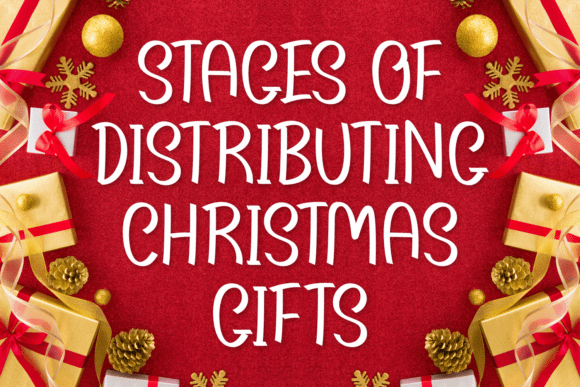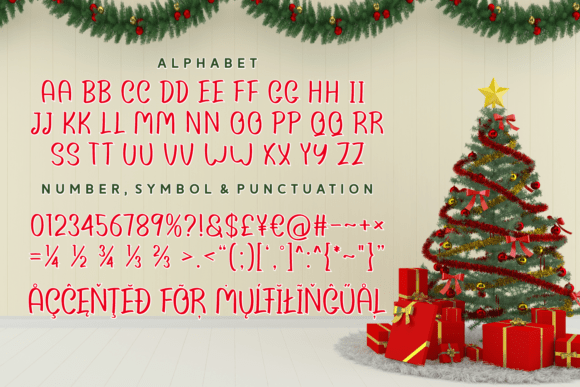
Introduction to Gemstone Christmas Font
As you sit surrounded by twinkling lights and the warmth of the holiday season, the urge to create something special strikes. You rummage through your design resources, searching for the perfect font to bring your festive vision to life. And then, you stumble upon it – the “Gemstone Christmas Font”. This enchanting font is more than just a design element; it’s a celebration of Christmas in itself.
With its blend of crafty and sweet aesthetics, the Gemstone Christmas Font is a high-quality resource that elevates any creative project. Its transparent background and beautiful swash elements make it perfect for SVG cutting crafts, Silhouette shirts, and design quotes. Whether you’re a seasoned designer or a craft enthusiast, this font is a valuable addition to your design arsenal. And the best part? It’s available for free download, making it an accessible resource for designers of all levels.
Key Features of Gemstone Christmas Font
- Unique, hand-drawn design with a touch of elegance and sophistication, perfect for a high-quality creative project.
- Includes a transparent background, allowing for easy placement on any design without distractions.
- High-resolution font, suitable for use in both print and digital designs, with a minimum resolution of 300 DPI.
- Comes in a range of sizes, from 12 to 72 points, allowing for flexibility in design applications.
- Perfect for use in Christmas-themed designs, invitations, cards, and other creative projects where a touch of luxury is desired.
Honest Review: Gemstone Christmas Font
I recently stumbled upon the Gemstone Christmas Font, and I must say, it’s a high-quality addition to any creative project. The font itself is a beautiful, hand-drawn design that’s perfect for adding a touch of elegance to your holiday-themed work.
- ✨ The font comes with a transparent background, making it easy to use in various design scenarios.
- ✨ The font is a great resource for designers working on Christmas-themed projects, as it adds a unique touch to any design.
- ⚠️ The font is not a full character set, so you may need to supplement it with other fonts for a complete design.
- ⚠️ Some characters may not be available in all languages, which could be a concern for designers working on international projects.
Overall, I think the Gemstone Christmas Font is a great resource for designers looking to add a touch of whimsy to their holiday-themed work. While it’s not a perfect font, its unique design and high-quality feel make it a worthwhile addition to any design library.
For the best results, use the Gemstone Christmas Font on a high-quality background. A transparent background can also help the font stand out. Consider using the font in a creative project, such as a holiday card or invitation. You can also use the font in a design resource, such as a brochure or flyer.
The Gemstone Christmas Font is perfect for use in holiday-themed designs, such as Christmas cards, invitations, and decorations. It’s also great for use in general design projects, such as brochures, flyers, and posters. You can also use the font in a free download, such as a printable art file or a digital invitation.